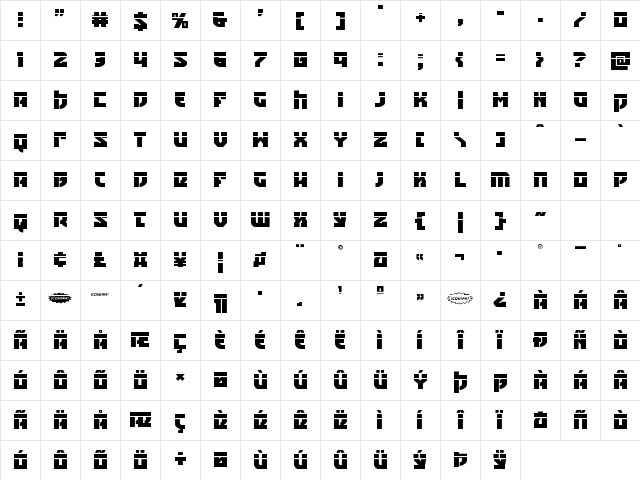
Crazy Ivan Laser Regular Free Font
Crazy Ivan Laser Regular
Complete Crazy Ivan Laser Regular glyph index. Displaying only characters natively supported by Crazy Ivan Laser Regular font.
Design Context for Crazy Ivan Laser
Crazy Ivan Laser is a composed and adaptable typeface that performs quietly and consistently across a wide range of design contexts.